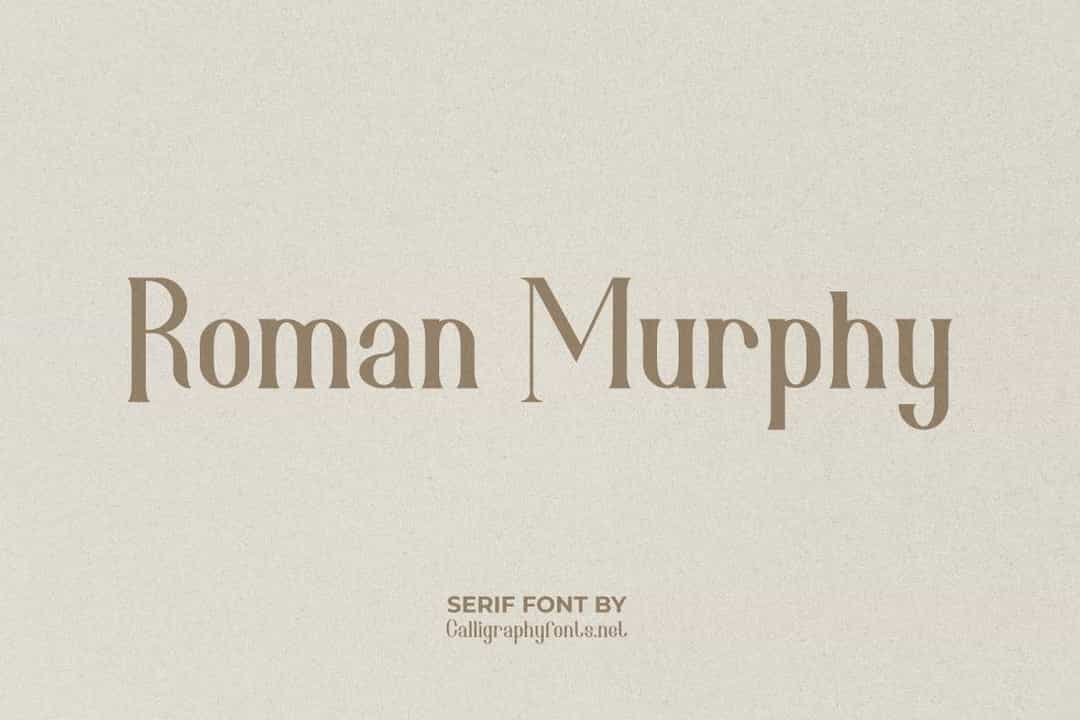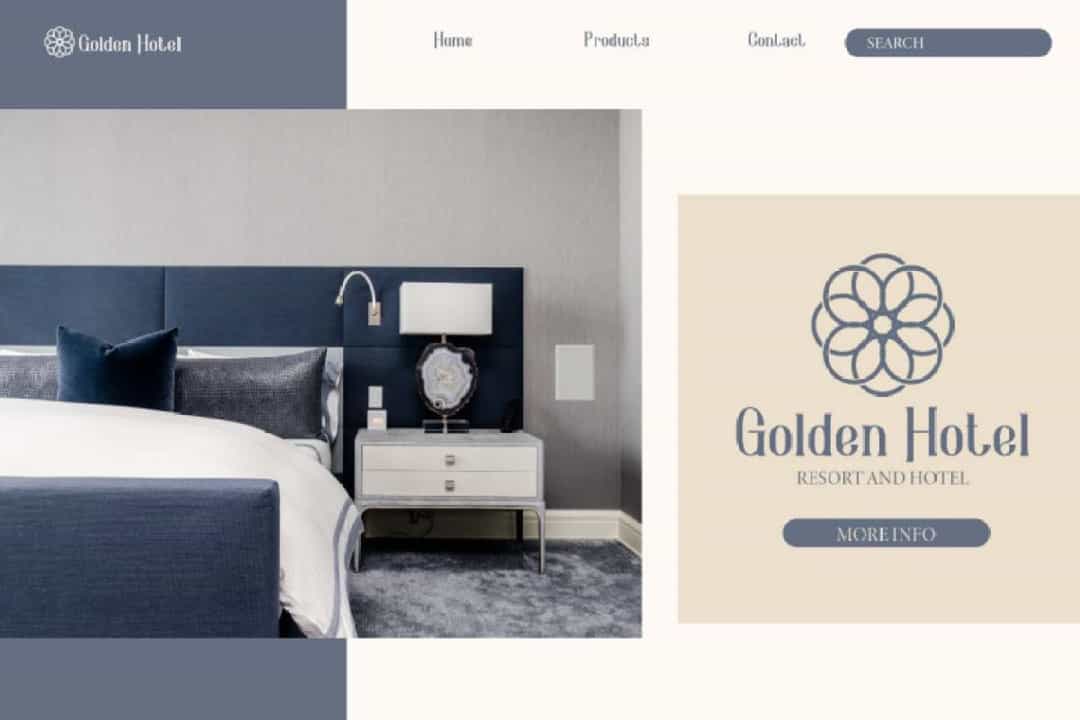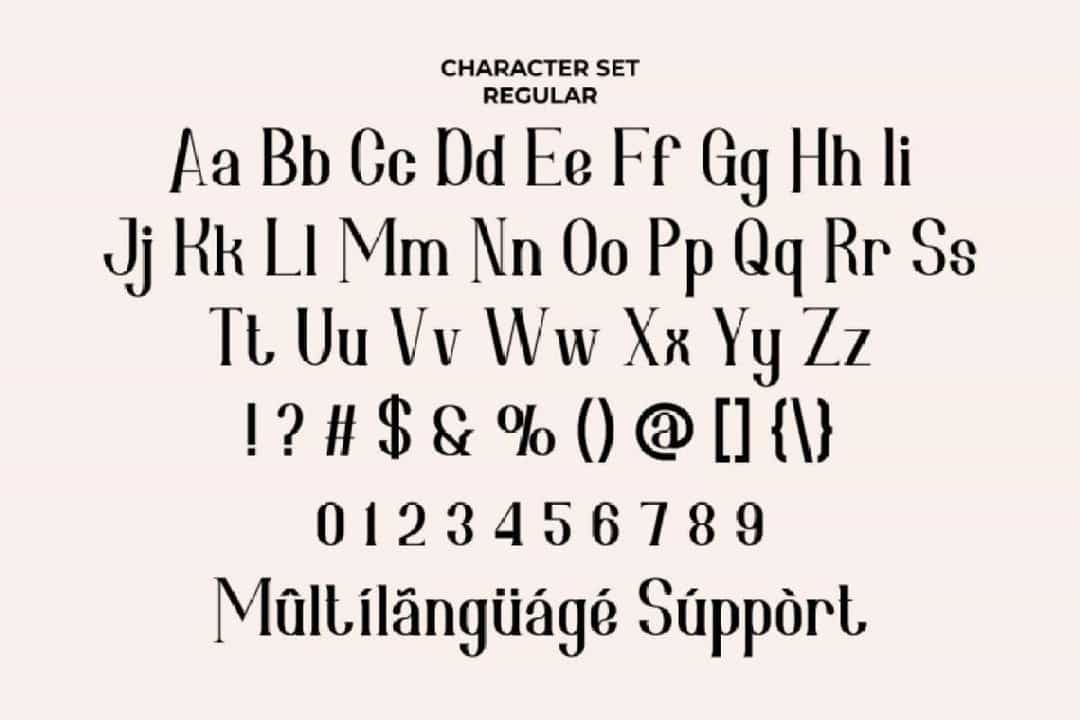
Roman Murphy is an elegant serif font family with classic features. Ideal for branding, logos and headlines as well as signage purposes, Roman Murphy comes in both regular and italic versions for you to use!